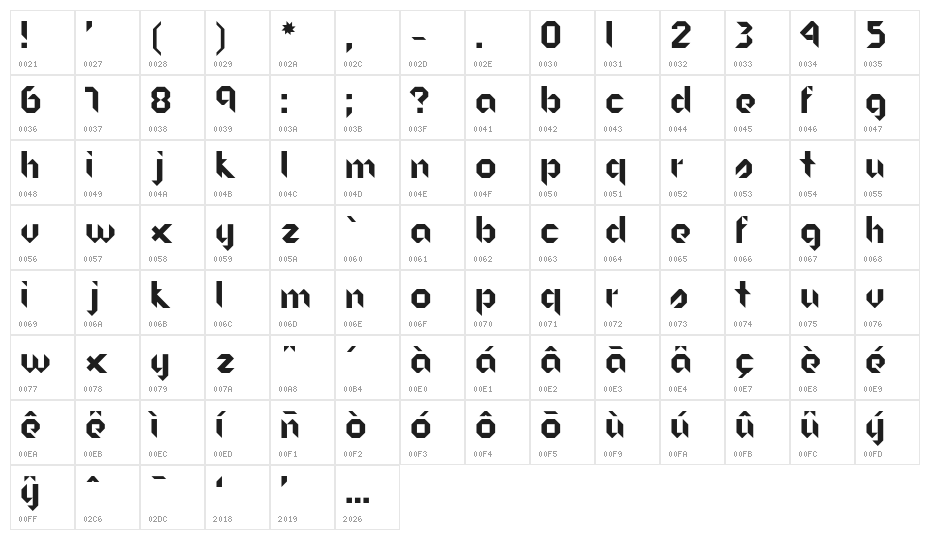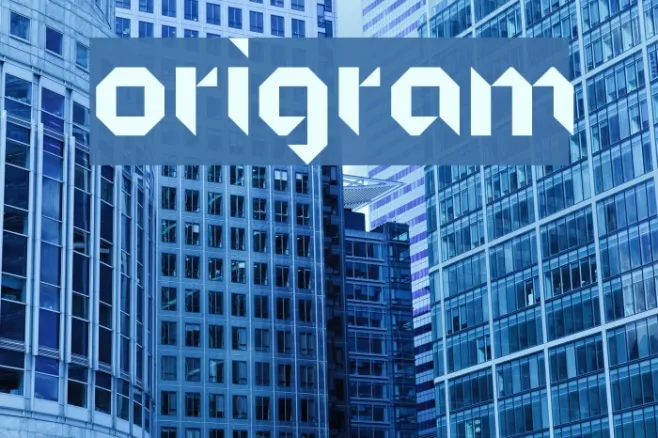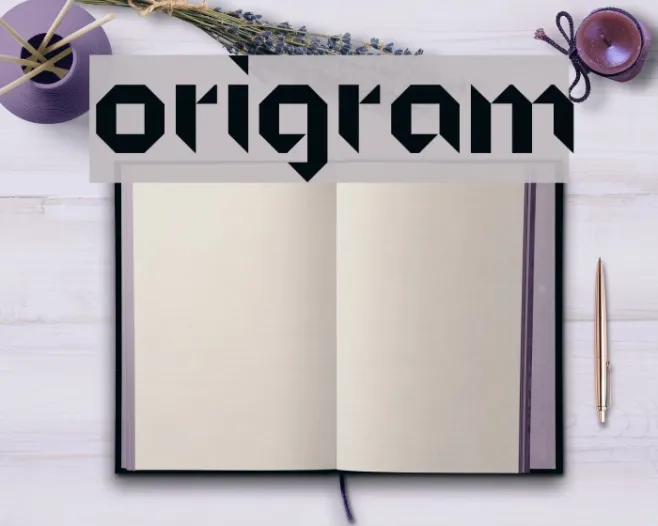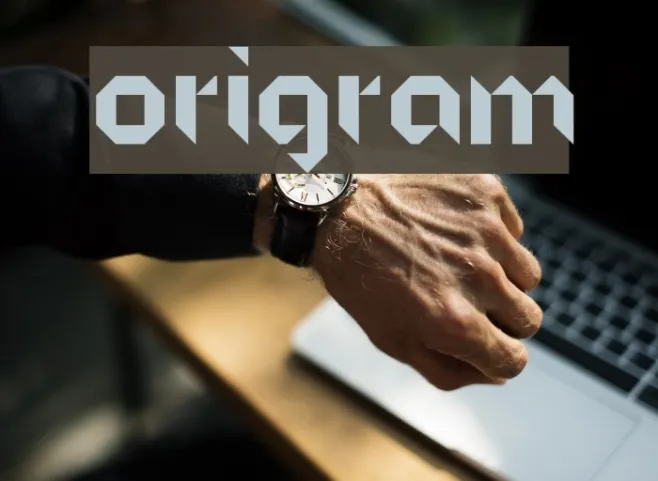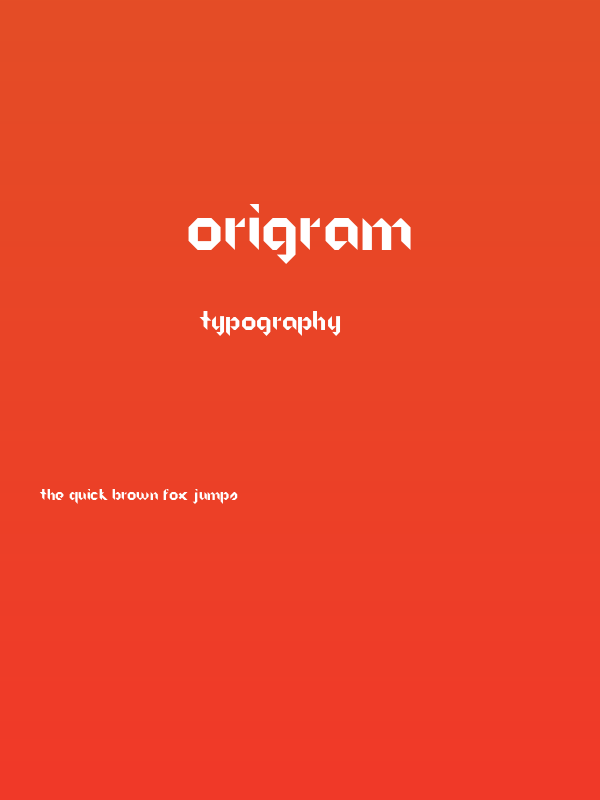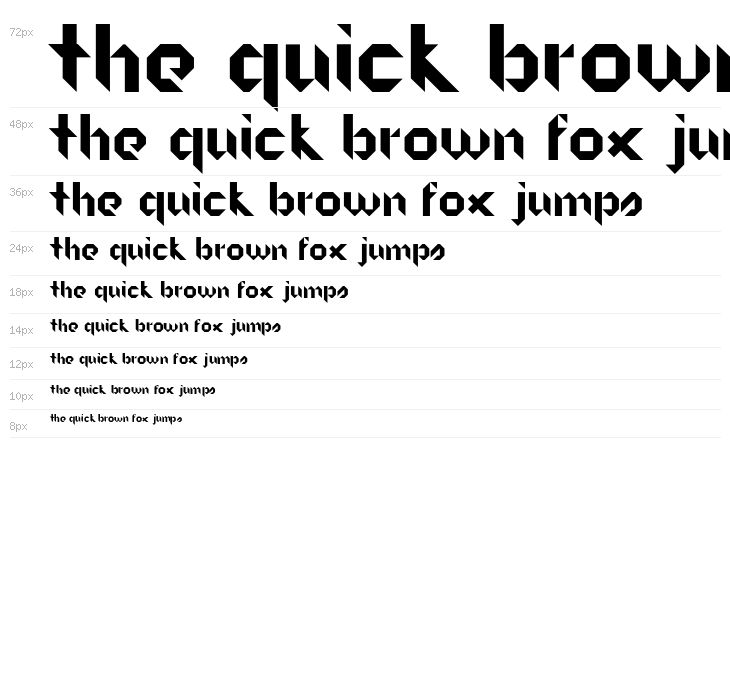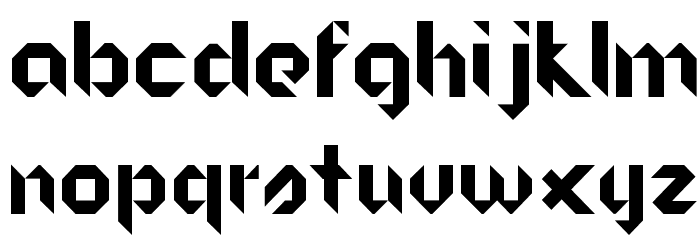
Origram Font
Origram Description
This font features a bold, geometric design with sharp angles and a futuristic aesthetic. The characters are constructed with a series of straight lines and acute angles, creating a dynamic and edgy appearance. The uppercase and lowercase letters maintain a consistent style, with a strong emphasis on symmetry and uniformity. Numbers and special characters follow the same angular design, ensuring a cohesive look across all elements. The font's unique style makes it stand out, ideal for projects that require a modern and innovative touch.
| Proposed Projects | Ideal for branding, posters, video game titles, and tech-related designs. |